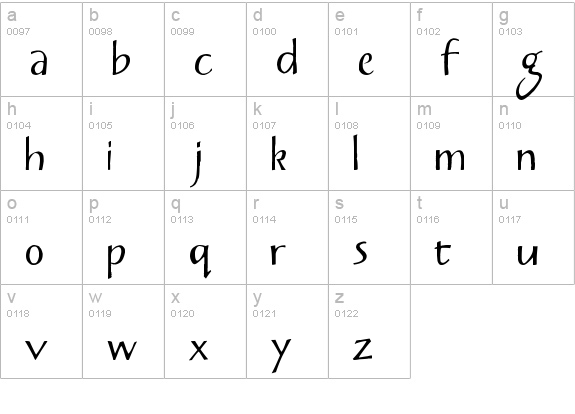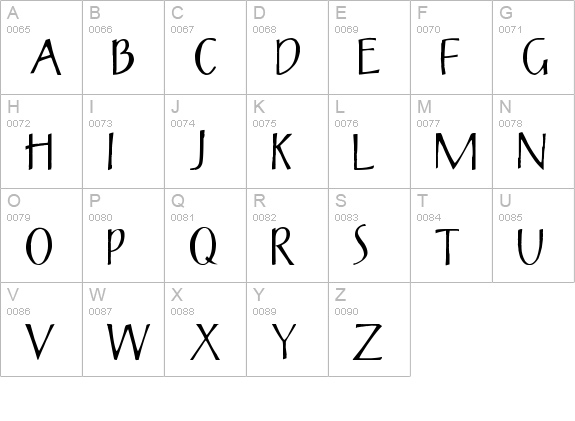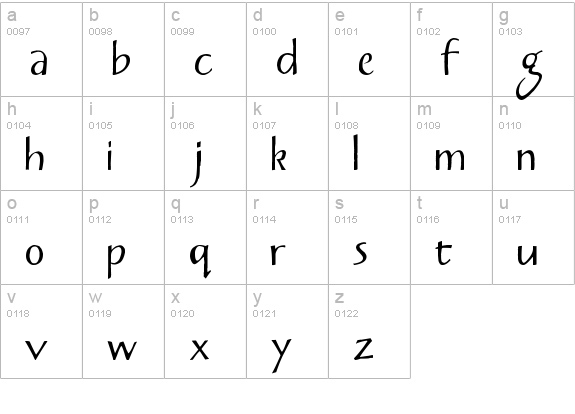
the Blue Cabin Font Details
Introducing Blue Cabin font, a versatile and modern typeface that exudes elegance and sophistication. With its clean lines and contemporary design, Blue Cabin is perfect for a wide range of projects, from branding to packaging to web design. This font features a unique blend of sleek curves and sharp angles, making it both stylish and easy to read. Whether you're looking to add a touch of class to your next project or simply want to stand out from the crowd, Blue Cabin has got you covered. The best part? Blue Cabin font is completely free to download at FontsMarket.com. Simply head over to the website and grab your copy today to elevate your designs and captivate your audience with this stunning typeface. Don't miss out on this opportunity to enhance your creative projects with Blue Cabin font - the perfect choice for those who appreciate quality and style.